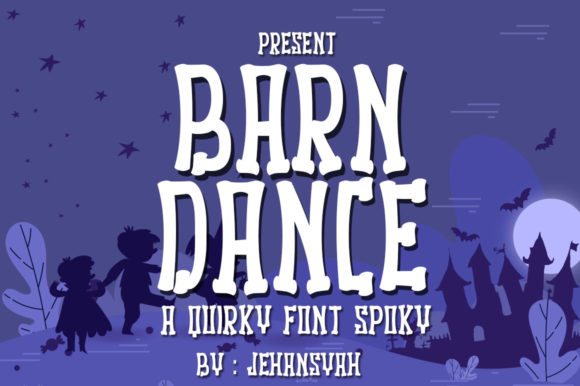
Journey through the world of typography with Barn Dance, an exceptional display font crafted to ignite your creativity. Designed with passion by Jehansyah251, this font is an extraordinary blend of style, elegance, and functionality. With its distinctive character, Barn Dance effortlessly elevates your designs, transforming them into captivating visual masterpieces.
Immerse yourself in the boundless versatility of Barn Dance. Whether you're crafting logos, posters, branding materials, or any other design project, this font seamlessly adapts to your vision, adding a touch of exclusivity and charm. Its meticulously crafted letterforms dance across the page, leaving a lasting impression that resonates with your audience.
Experience the thrill of creative freedom as you explore the depths of Barn Dance's captivating allure. Let your imagination soar as you craft designs that stand out from the crowd, leaving an indelible mark on the minds of your beholders. With Barn Dance as your creative ally, the possibilities are endless.